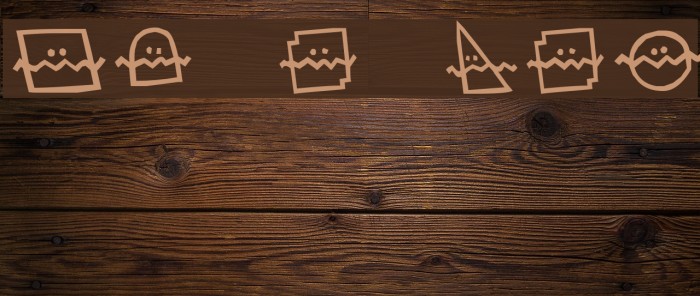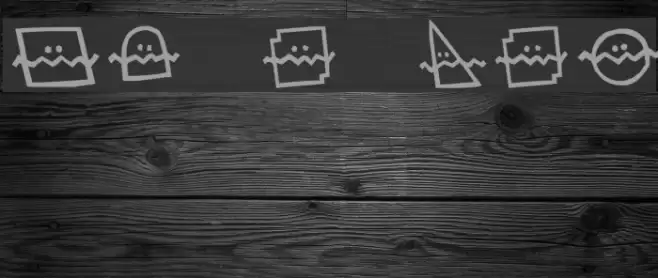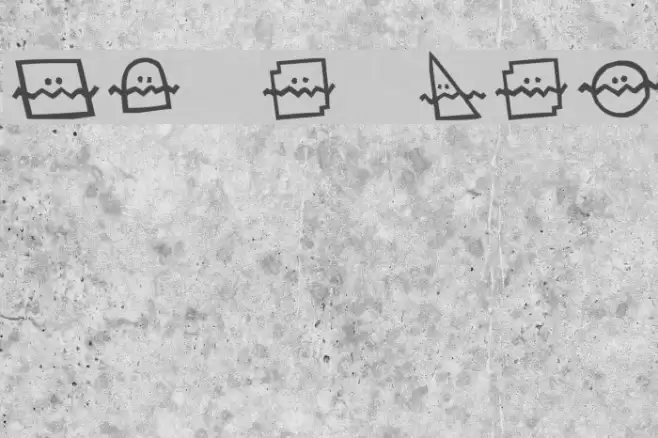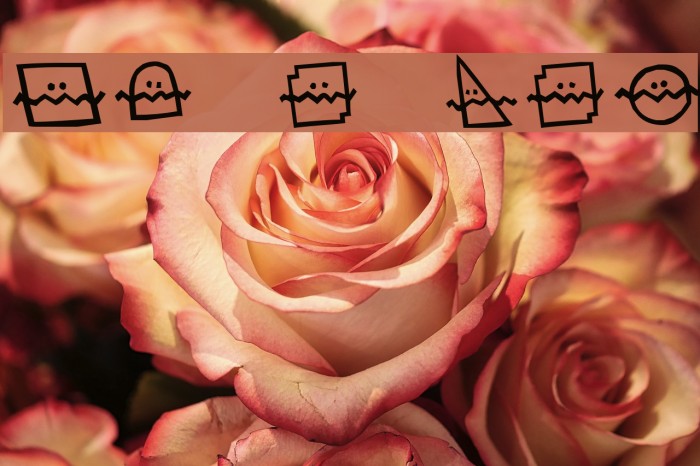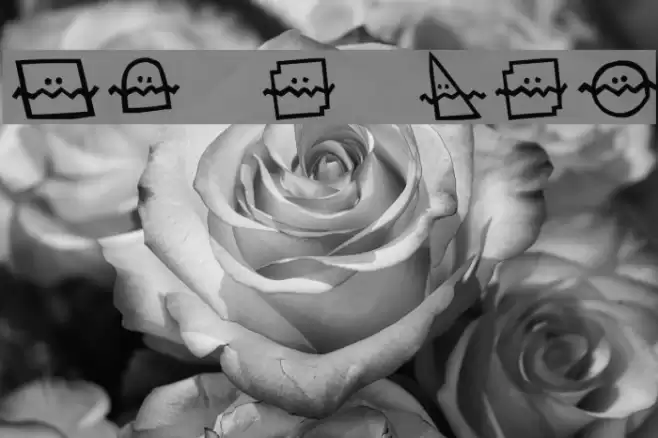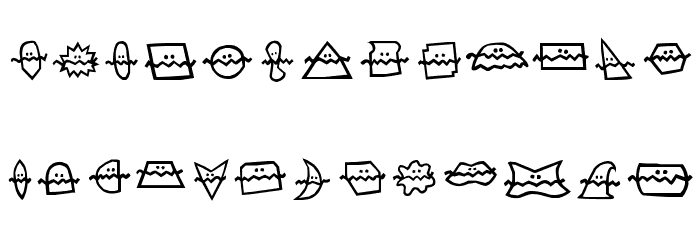
do i lie? Font
do i lie? Description
A playful, hand-drawn decorative font with each character enclosed in a unique geometric or organic shape, featuring whimsical faces and expressive lines. The style is informal and cartoonish, with irregular outlines and a lively, energetic feel.
| Overall Style | Playful, Decorative, Cartoonish |
| Use Case | Headlines, Posters, ChildrenΓ’β¬β’s materials, Logos |
| Proposed Projects | ChildrenΓ’β¬β’s books, playful posters, party invitations, educational materials, comics. |